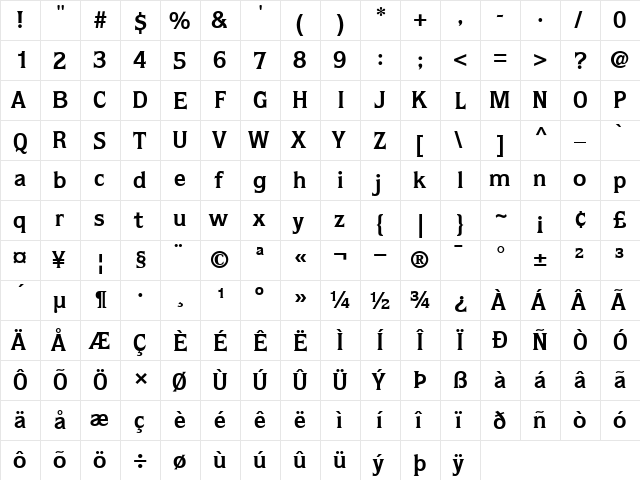
ITCQuorum Bold
Design Context for ITCQuorum Typeface
ITCQuorum is a composed and adaptable typeface that performs quietly and consistently across a wide range of design contexts. Its bold stroke weight gives it real presence on the page.
Pro Tip: Use ITCQuorum in both headline and body roles to test its range before committing to a single application.